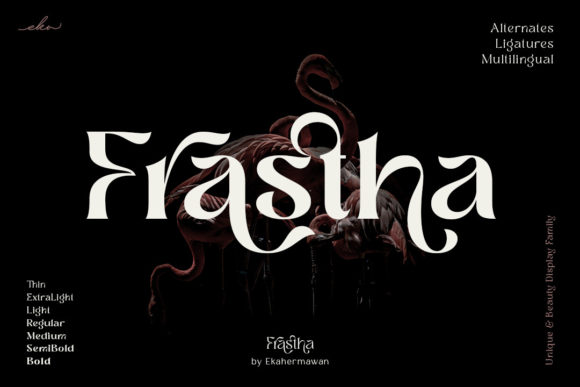
Frastha Font: A Unique Display Font Inspired by Indian Culture
The world of typography is vast and diverse, with numerous fonts available for various design needs. One font that stands out for its unique blend of cultural inspiration and aesthetic appeal is the Frastha Font. Designed to capture the essence of Indian culture, Frastha is a display font that brings a touch of exotic elegance to any crafting project. In this article, we’ll explore what makes Frastha a standout choice for designers and crafters alike, and how its features can elevate your creative endeavors.
What is Frastha Font?
Frastha Font is a specially crafted display font that draws inspiration from the rich cultural heritage of India. Its design is characterized by intricate details and a stylistic approach that reflects the vibrant and diverse traditions of Indian art and architecture. Whether you’re working on a crafting project, a digital design, or a print material, Frastha offers a unique and personalized look that sets it apart from more conventional fonts.
Key Features of Frastha Font
- Inspired by Indian Culture: Frastha’s design is deeply rooted in Indian aesthetics, making it an excellent choice for projects that require a cultural touch.
- PUA Encoded: This font is PUA (Private Use Area) encoded, which means it offers easy access to a wide range of glyphs and swashes. This feature allows for greater flexibility and creativity in your designs.
- Unique Display Font: Frastha is specifically designed as a display font, making it perfect for headlines, titles, and any text that needs to stand out.
- Versatile: While ideal for display purposes, Frastha’s elegant design also works well for other creative projects, including invitations, posters, and digital media.
Design Tips for Using Frastha Font
- Utilize Swashes: Take advantage of Frastha’s PUA encoding to access and incorporate swashes and glyphs, adding a decorative touch to your text.
- Adjust Size and Weight: Use Frastha in various sizes and weights to create visual hierarchy and emphasize key elements in your design.
- Encoding: PUA (Private Use Area) encoded for easy access to glyphs and swashes.
- Style: Display font with intricate details inspired by Indian culture.
Frastha Font is a unique and captivating display font that brings the beauty of Indian culture to your design projects. Its PUA encoding, intricate details, and versatile application make it an excellent choice for crafters, designers, and anyone looking to add a touch of elegance and cultural richness to their work. By incorporating Frastha into your projects, you can create visually stunning and personalized designs that stand out from the crowd.